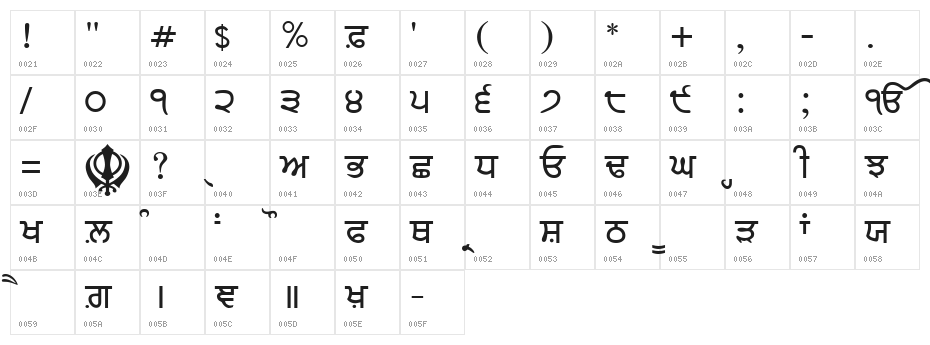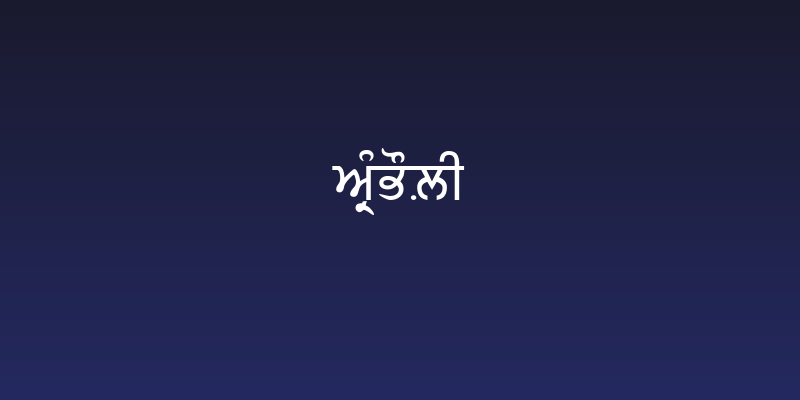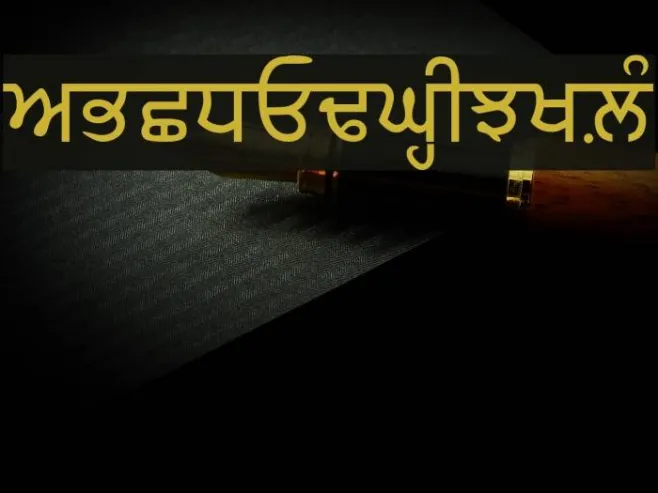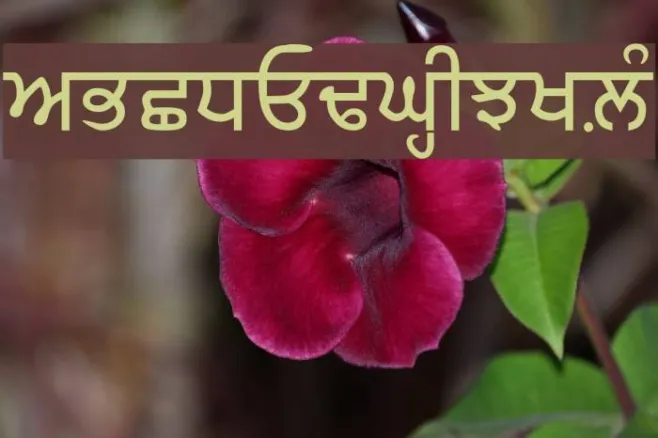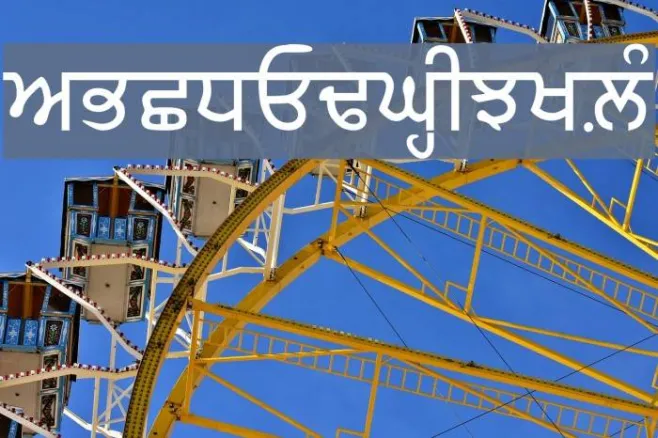
Amrboli Font
Amrboli Description
This font is a distinctive and bold typeface that features a unique blend of traditional and modern elements. The characters are crafted with a strong emphasis on geometric shapes, giving it a structured and clean appearance. The strokes are consistent in weight, providing a uniform look across all characters. The font includes a full set of uppercase and lowercase letters, numerals, and a variety of special characters, making it versatile for different uses. Its design is both functional and aesthetically pleasing, suitable for a wide range of applications.
| Proposed Projects | Ideal for branding, signage, and editorial design projects where a strong visual impact is desired. |